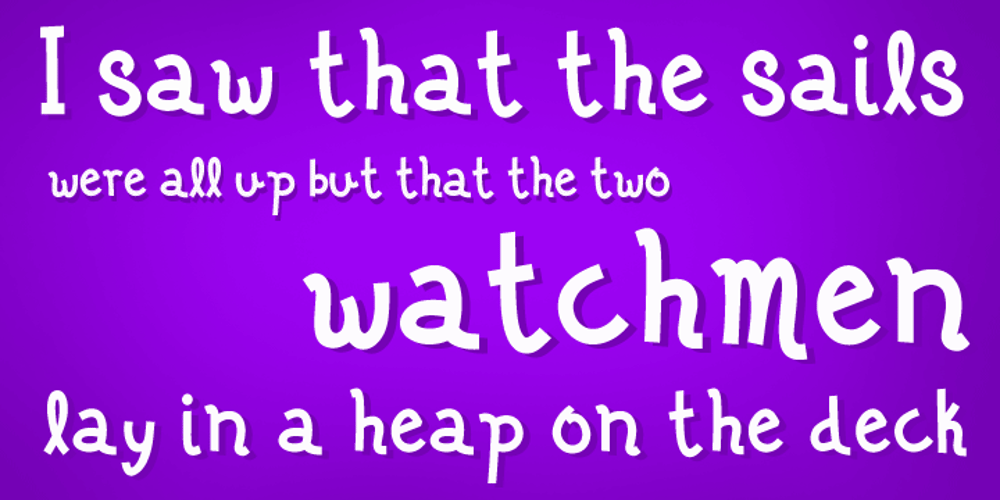
Jalo Font Family was designed by Gustavo Lassala and published by BRtype. Jalo contains 1 styles and family package options. Jalo is a playful font. Every single letter has own personality.